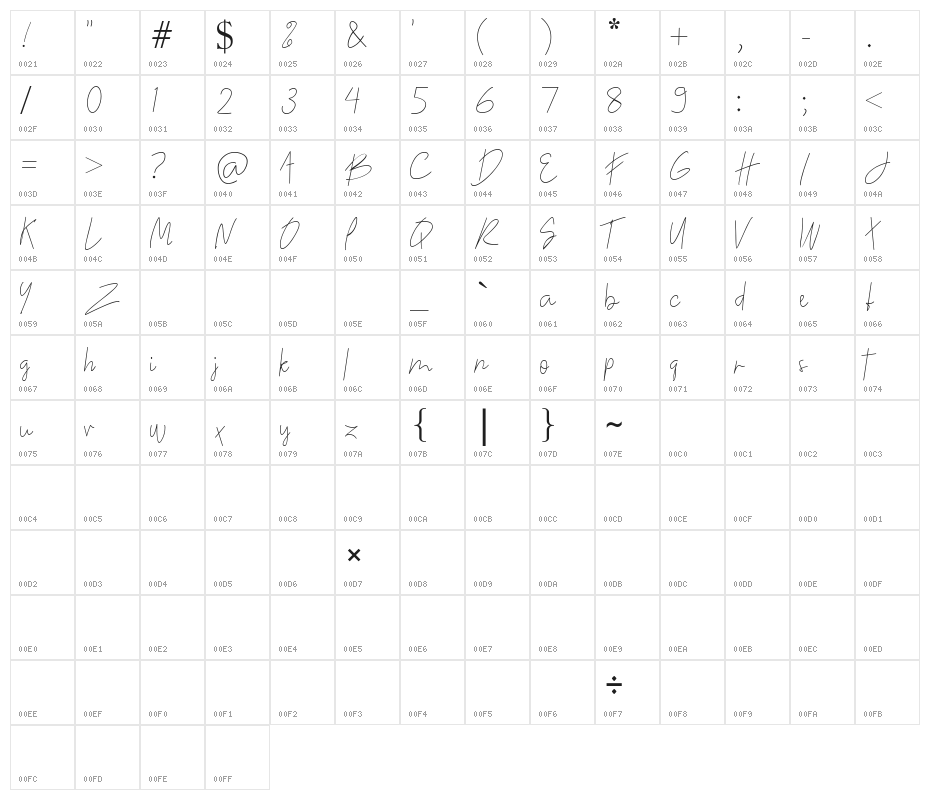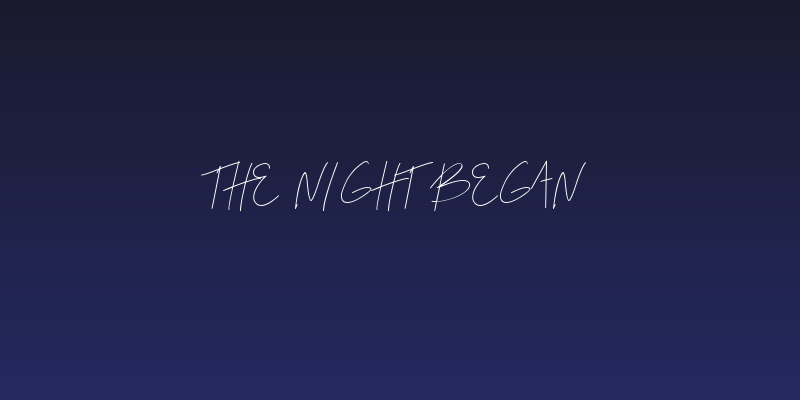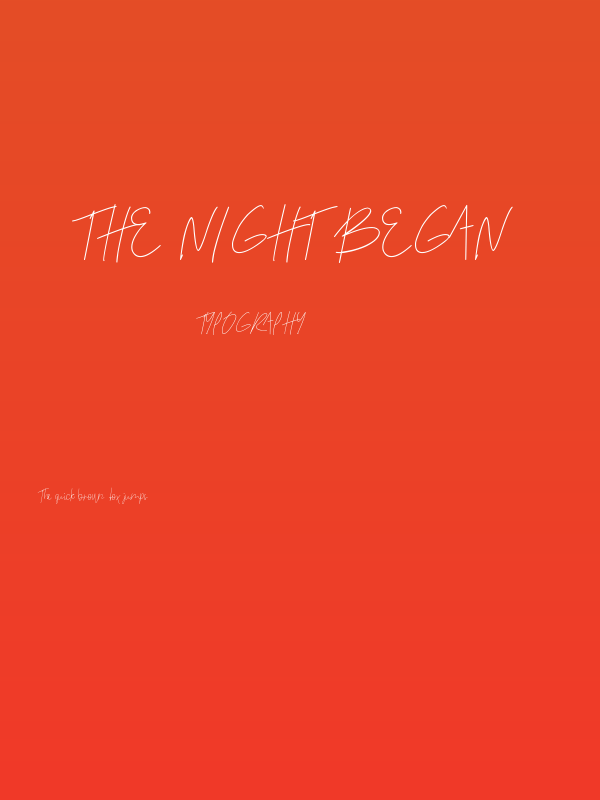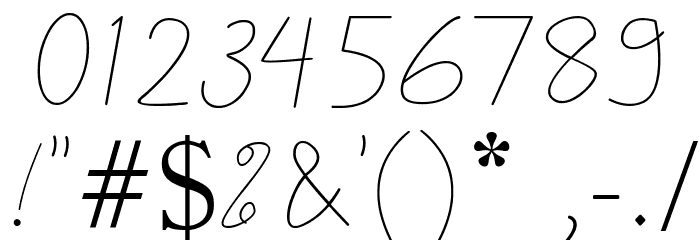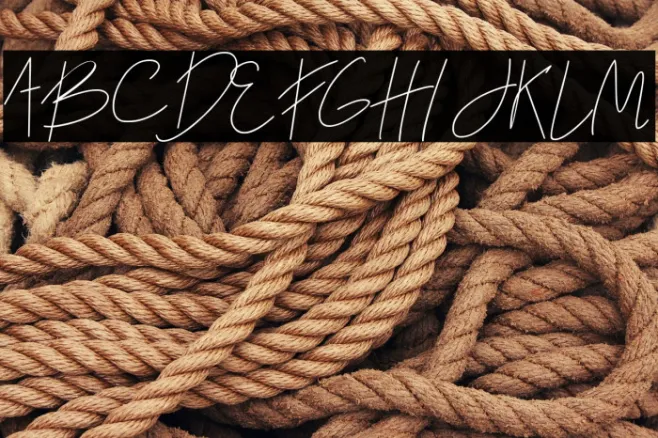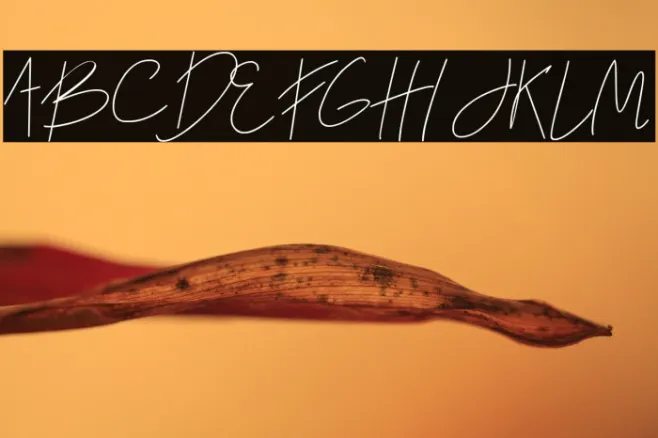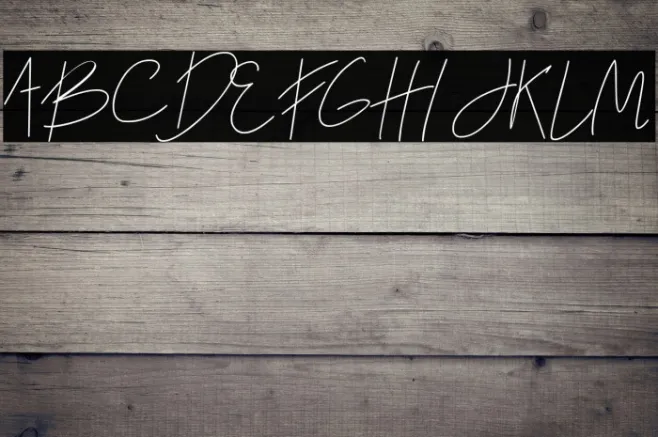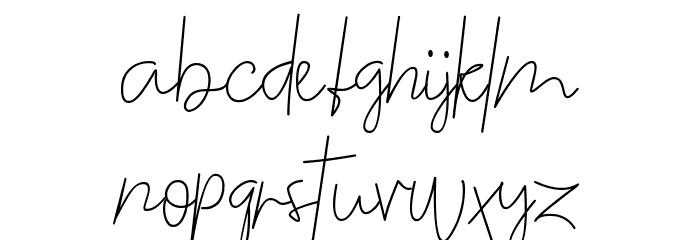
The Night Began Font
The Night Began Description
This font exudes a casual and spontaneous feel, reminiscent of a quick handwritten note. The strokes are thin and fluid, giving it a light and airy appearance. The characters are slightly slanted, adding to the informal and relaxed vibe. The uppercase letters are tall and narrow, while the lowercase letters maintain a consistent flow, enhancing the handwritten aesthetic. The numbers and special characters follow the same style, ensuring a cohesive look across all elements. This font is perfect for projects that require a personal touch or a sense of informality.
| Use Case | Logos, Invitations, Personal notes |
| Proposed Projects | Ideal for personal notes, invitations, greeting cards, and casual branding projects. |